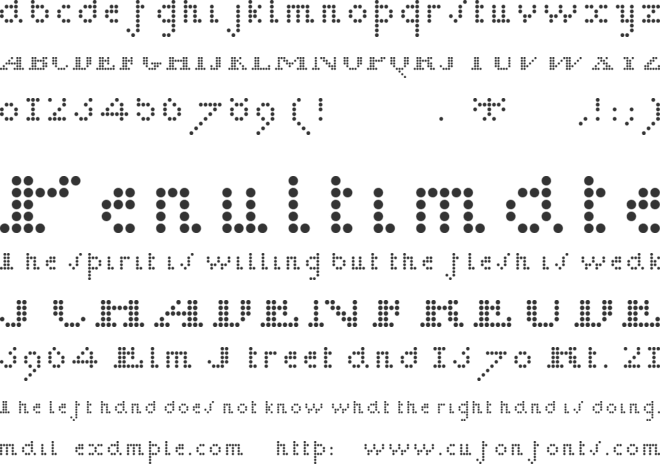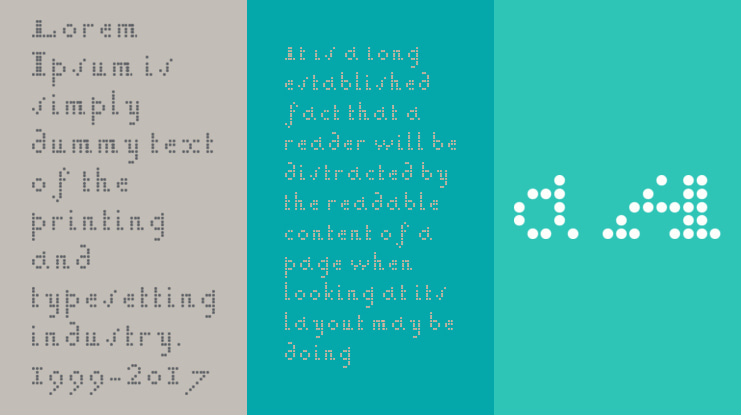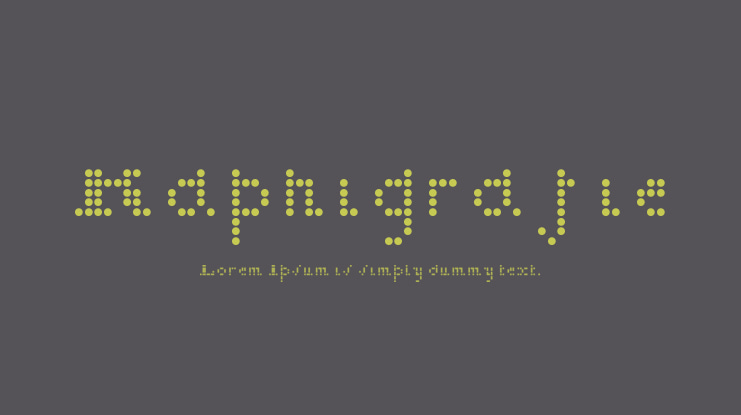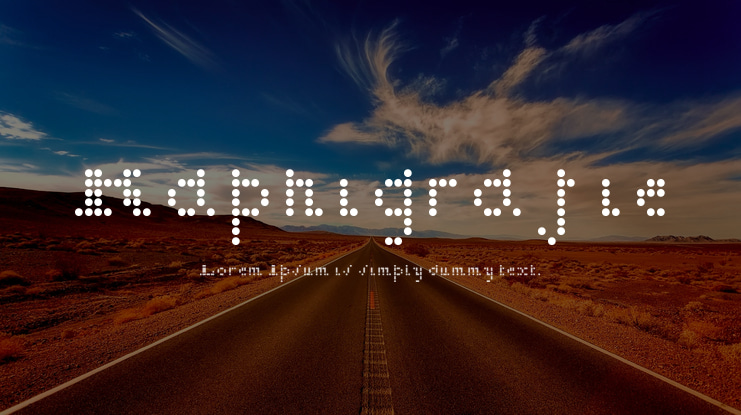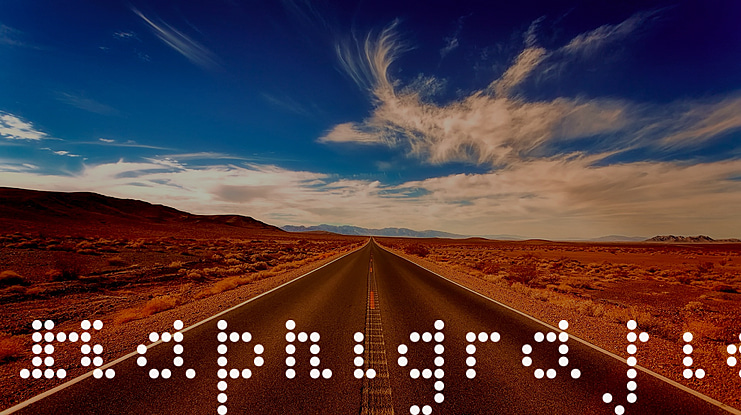
Raphigrafie Font
Alexander Fakoó
optically readable dot-writing by Louis Braille in 1839, also called Decapoint | optisch lesbare Punktschrift von Louis Braille 1839, auch Decapoint genannt | en.fakoo.de/raphi